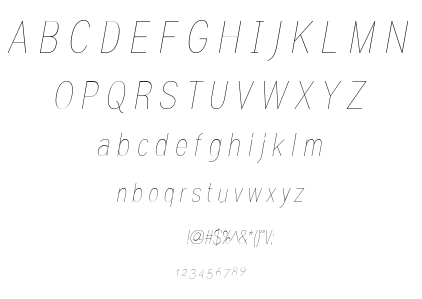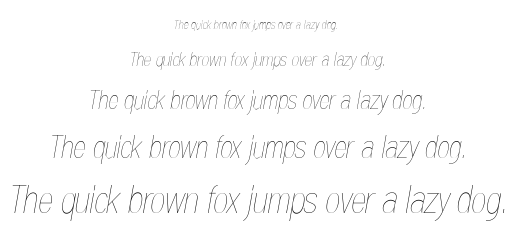
Gram
Gram Font
This typeface has its origins in my sketchbooks and a desire to create a typeface like…well, exactly like this. It started several months ago when I was working on a project that I felt needed an ultralight typeface that was quietly sophisticated, calm, clean, modern, and everything else I think Gram turned out to be. Like all of my current typefaces, Gram is named after a musical artist whose recordings created the soundtrack for the time I was designing it. It was simply perfect that I would be listening to Gram Parsons when I decided to design a typeface of so little mass, much like a gram. Because of its frail strokes, Gram is not suitable for text or other small sizes. Use it when you want an understated display type.